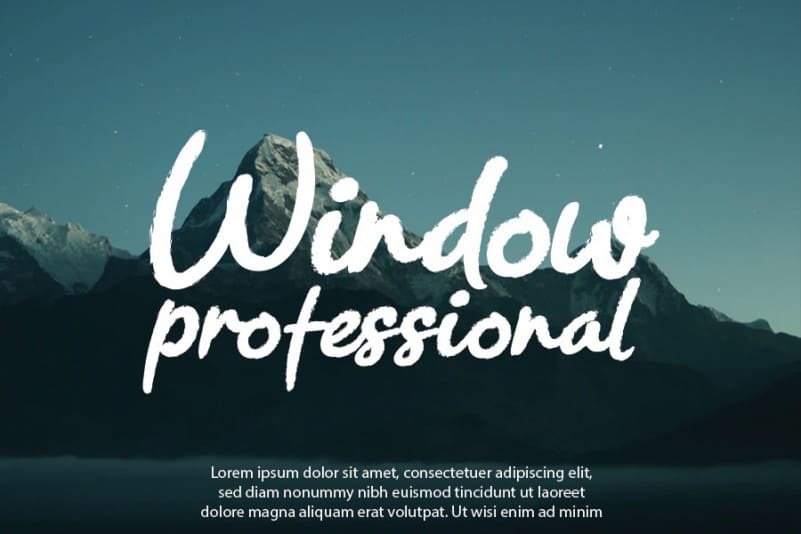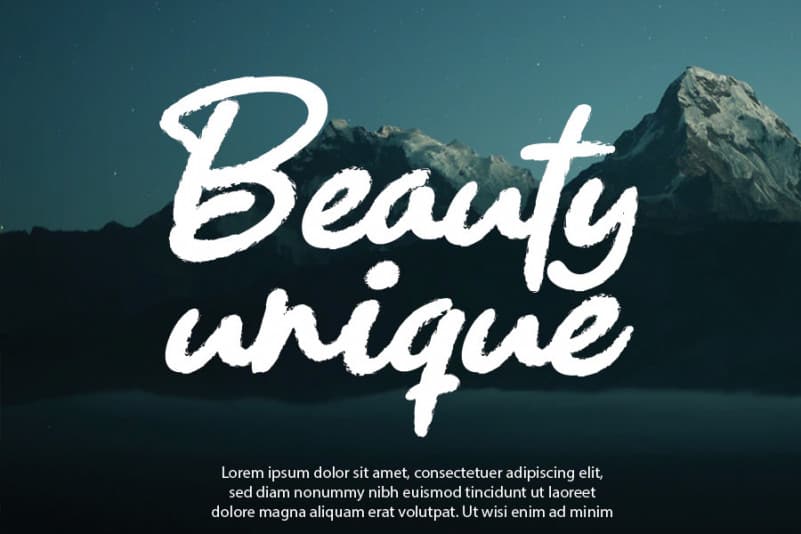
Raihagea Brush Font
Raihagea Brush Font is an exquisite handwritten font, masterfully designed to become a true favorite. Fall in love with its incredibly versatile style and use it to create spectacular designs!
The latest style letters are perfect for wall displays, wedding invitations, social media post logos, advertisements, product packaging, product designs, labels, photography, watermarks, invitations, stationery, and any project that requires taste handwriting.